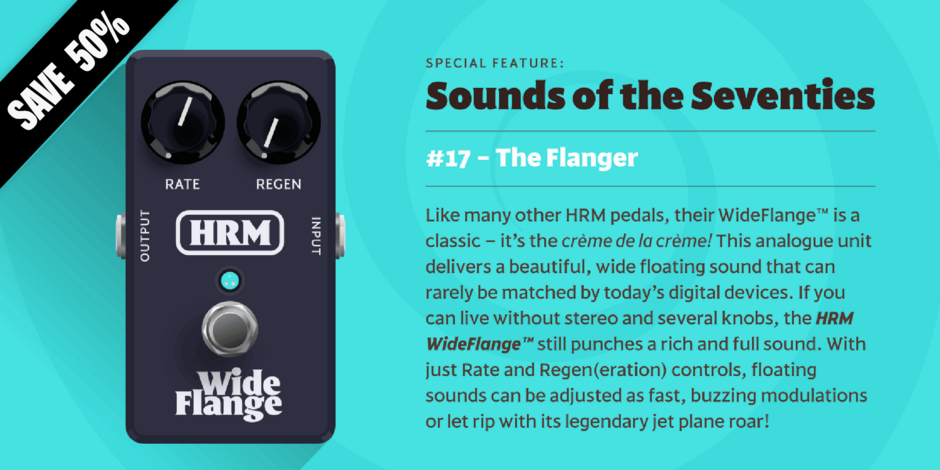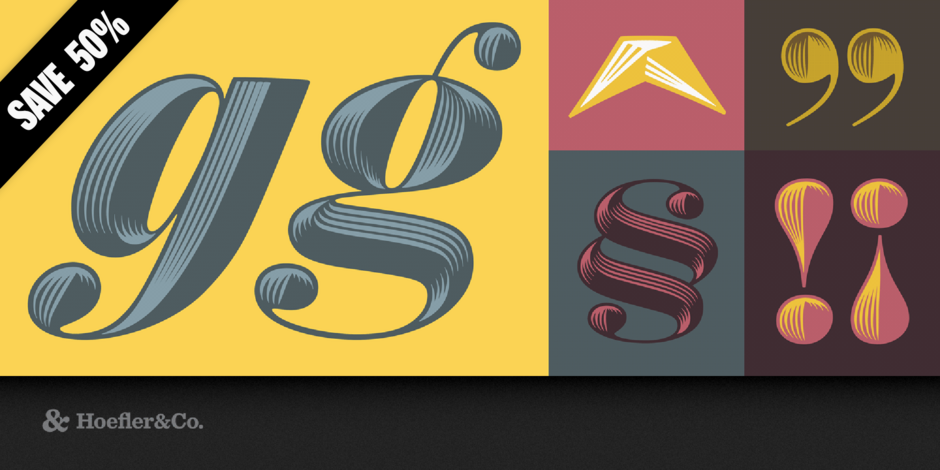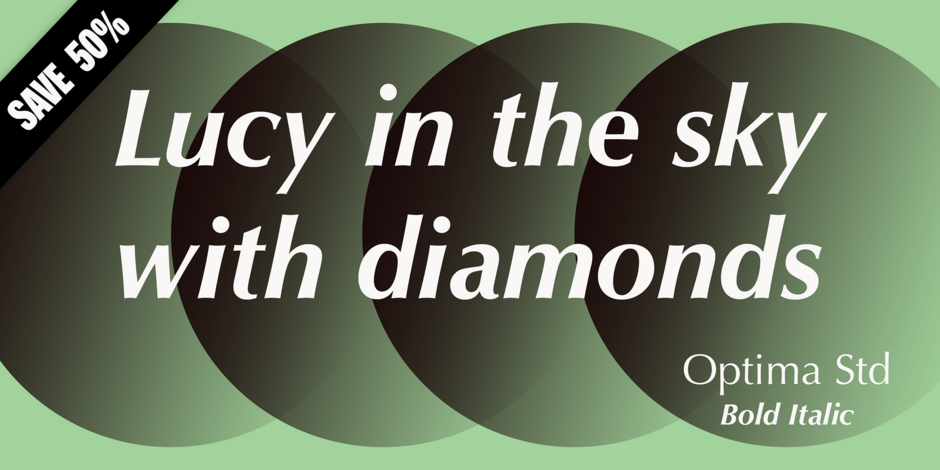
Harmonique™ by Monotype
Harmonique is an incised serif typeface designed for both text and display purposes. It’s a type family of two styles that work in harmony together to add distinction and personality to your own typographic compositions. Harmonique’s low contrast forms have the appeal of a humanist sans serif typeface. Its subtly flared terminals evoke the craft and skill of a signwriter’s steady hand, creating an authentic and pleasing aesthetic. Harmonique Display is more calligraphic in its structure – as if drawn by a wide-nibbed pen. This style is accentuated by aggressively barbed serifs and chiselled arcs in its counters and bowls. These strong characteristics help to define a flamboyant, confident style that will provide impact and flair to your headlines, titles and identity designs.
Practical features include 48 ligatures that will enhance titling possibilities with their all-capital pairings – these are accesssed by turning on Discretionary Ligatures and then selecting either Sylistic Set 1 or 2. There are also a number of alternate caps that will subtly enhance your titles and headlines – access these via Stylistc Sets 3 and 4. Small Caps are included too (along with their matching diacritics) – adding another layer of versatility to this typeface. Proportional Lining figures are available as an option if you prefer them to the default Old Style figures.
There are 32 fonts altogether, with 8 weights in roman and italic from Light to Ultra in both text (low contrast) and display (high contrast) styles. Harmonique has an extensive character set (650+ glyphs) that covers every Latin European language.
Obsidian® by Hoefler & Co.
A majestic typeface uses digital means to achieve traditional ends.
The Obsidian typeface was designed by Andy Clymer with Jonathan Hoefler in 2015. Like the Surveyor typeface upon which it is based, Obsidian was inspired by mapmaking, celebrating the fanciful engraved legends that once adorned maps produced through copperplate engraving. Obsidian spans two genres, combining the handmade qualities of English Vernacular lettering with the robust proportions of ‘fat face’ poster types, two innovations in large-size lettering from the early years of the Industrial Revolution. Obsidian was recognized by an Innovation by Design award in 2015.
Optima® by Linotype
Optima was designed by Hermann Zapf and is his most successful typeface. In 1950, Zapf made his first sketches while visiting the Santa Croce church in Florence. He sketched letters from grave plates that had been cut about 1530, and as he had no other paper with him at the time, the sketches were done on two 1000 lire bank notes.
These letters from the floor of the church inspired Optima, a typeface that is classically roman in proportion and character, but without serifs. The letterforms were designed in the proportions of the Golden Ratio. In 1952, after careful legibility testing, the first drawings were finished.
The type was cut by the famous punchcutter August Rosenberger at the D. Stempel AG typefoundry in Frankfurt. Optima was produced in matrices for the Linotype typesetting machines and released in 1958. With the clear, simple elegance of its sans serif forms and the warmly human touches of its tapering stems, this family has proved popular around the world. Optima is an all-purpose typeface; it works for just about anything from book text to signage. It is available in 12 weights and 4 companion fonts with Central European characters and accents.